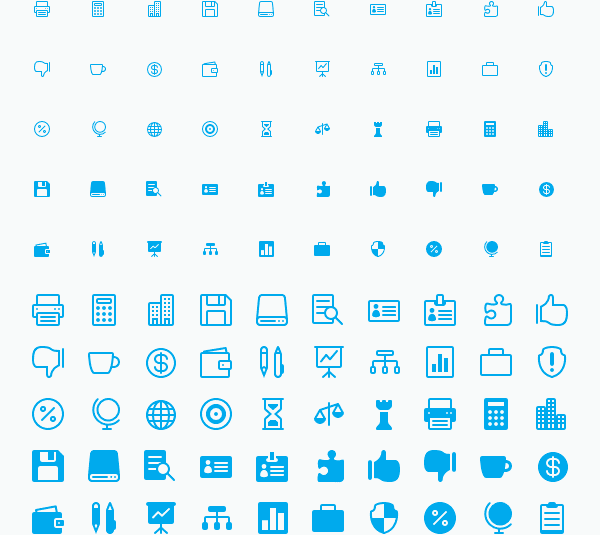
Today, we continue on our mission to create the most beautiful and robust icon font on the web – for free!
In August we released the Elegant Icon Font, with 310 beautiful icons packaged conveniently into a single font file. This icon font gives us a way to display beautiful vector-based graphics in our designs, but they can also be used for many other purposes, which is why we made them available for download for free! We also licensed them under the GPL 2.0, which means they are completely Open Source and restriction-free. Today, we add 50 more to that set with a business-themed update. These are pixel perfect at font sizes that are multiples of 16px, but can be used at any desired size. Download the full 360 icon set here.